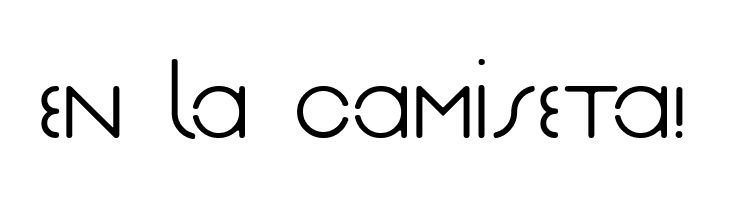
Pilot Command Leftalic Font
- Font: Pilot Command Leftalic
( Fonts by Typography in Decay )
A modern, geometric font with rounded edges and consistent stroke width.